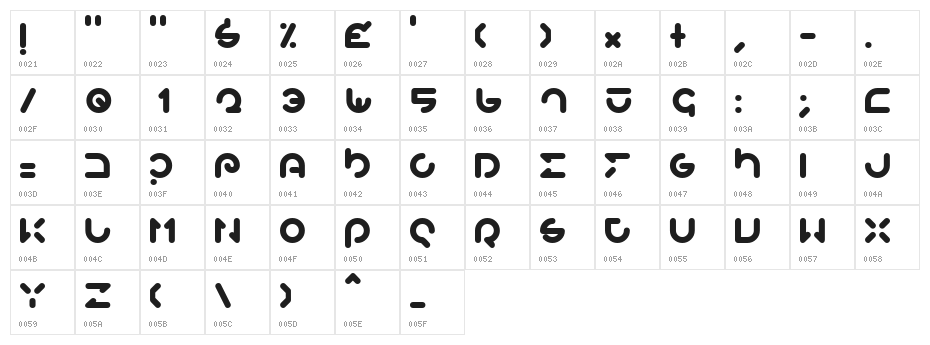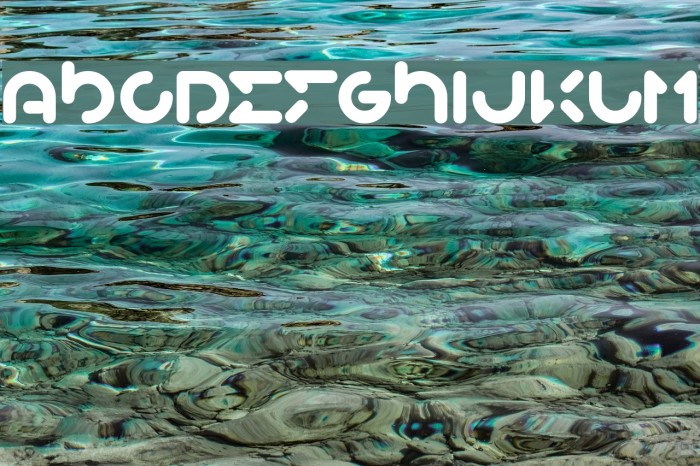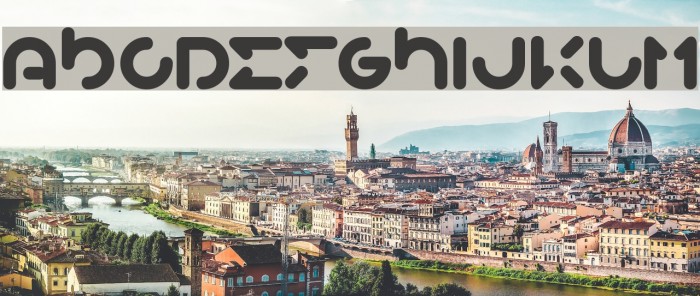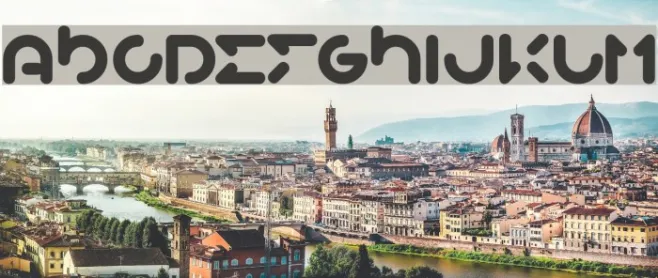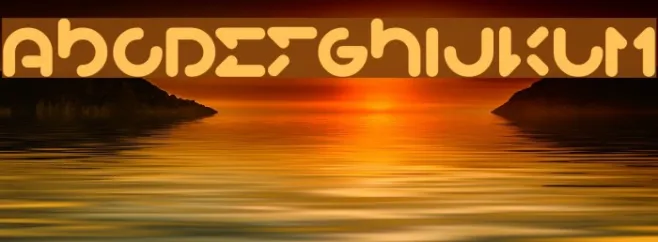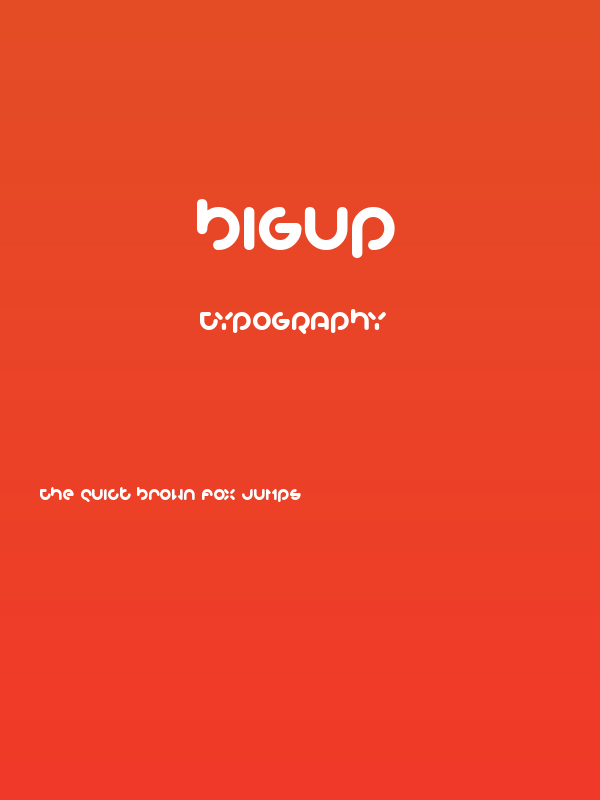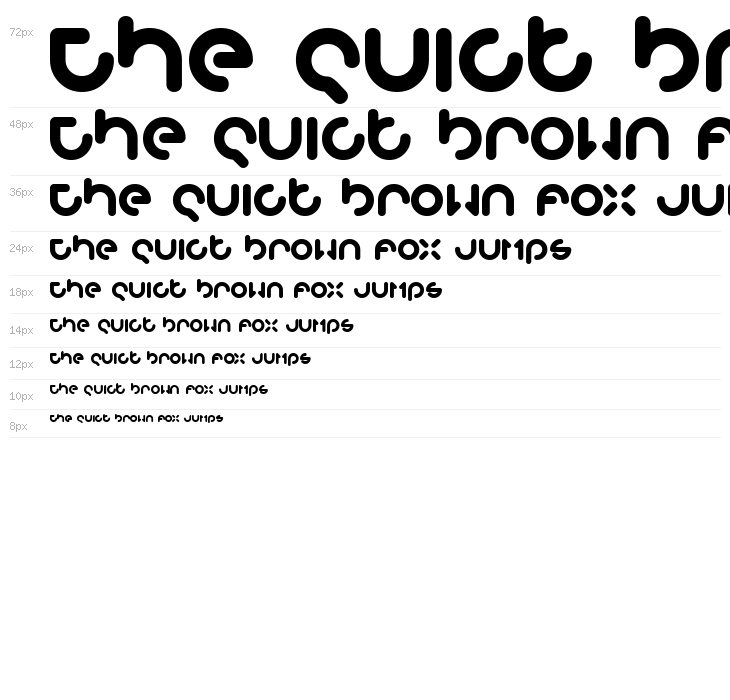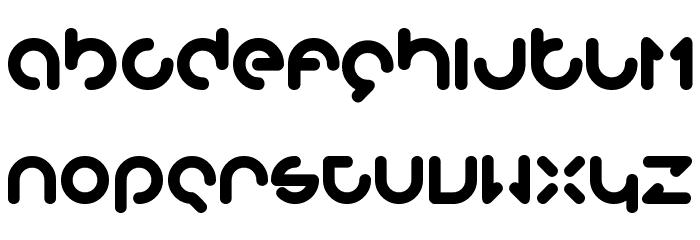
bigup Font
bigup Description
This font features a bold, rounded design with a futuristic and geometric aesthetic. The characters are composed of thick, uniform strokes that create a sense of solidity and modernity. Each letter and number is crafted with a unique style, incorporating curves and angles that give it a distinctive appearance. The font maintains a consistent weight throughout, ensuring readability while adding a playful and innovative touch. The special characters are equally stylized, matching the overall theme and enhancing the font's cohesive look.